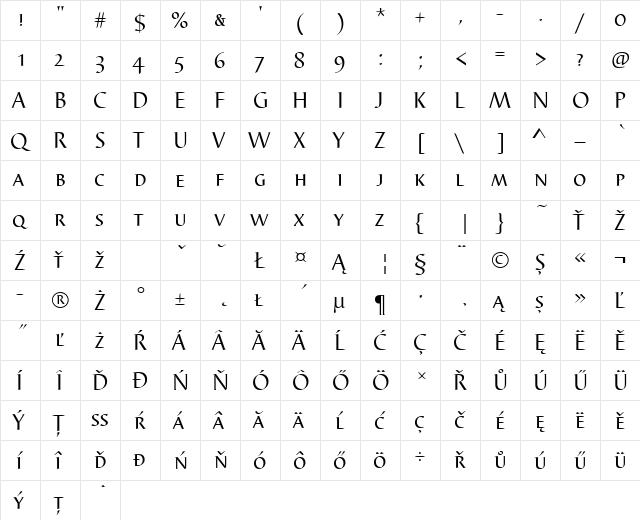
BarbedorSCTEEReg Regular
Design Context for BarbedorSCTEEReg Typeface
BarbedorSCTEEReg offers clean, dependable letterforms without strong stylistic allegiance, making it a practical choice for designers who need flexibility.